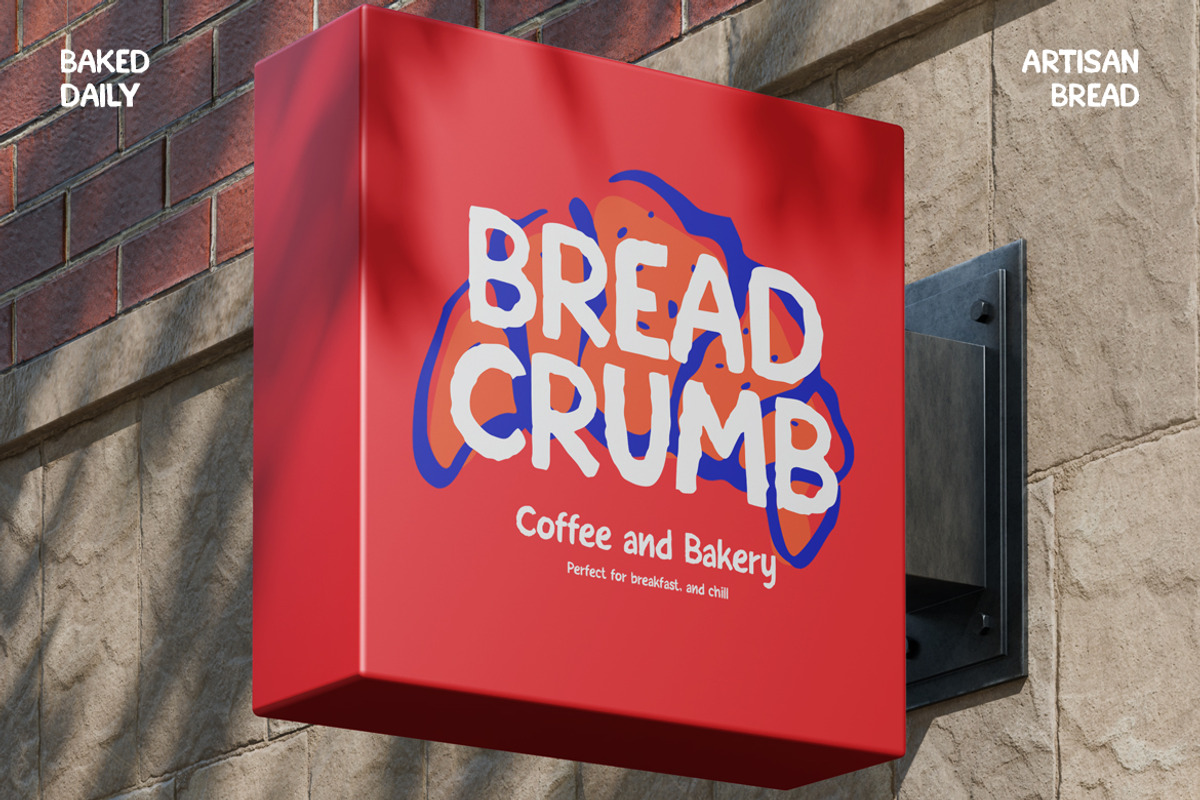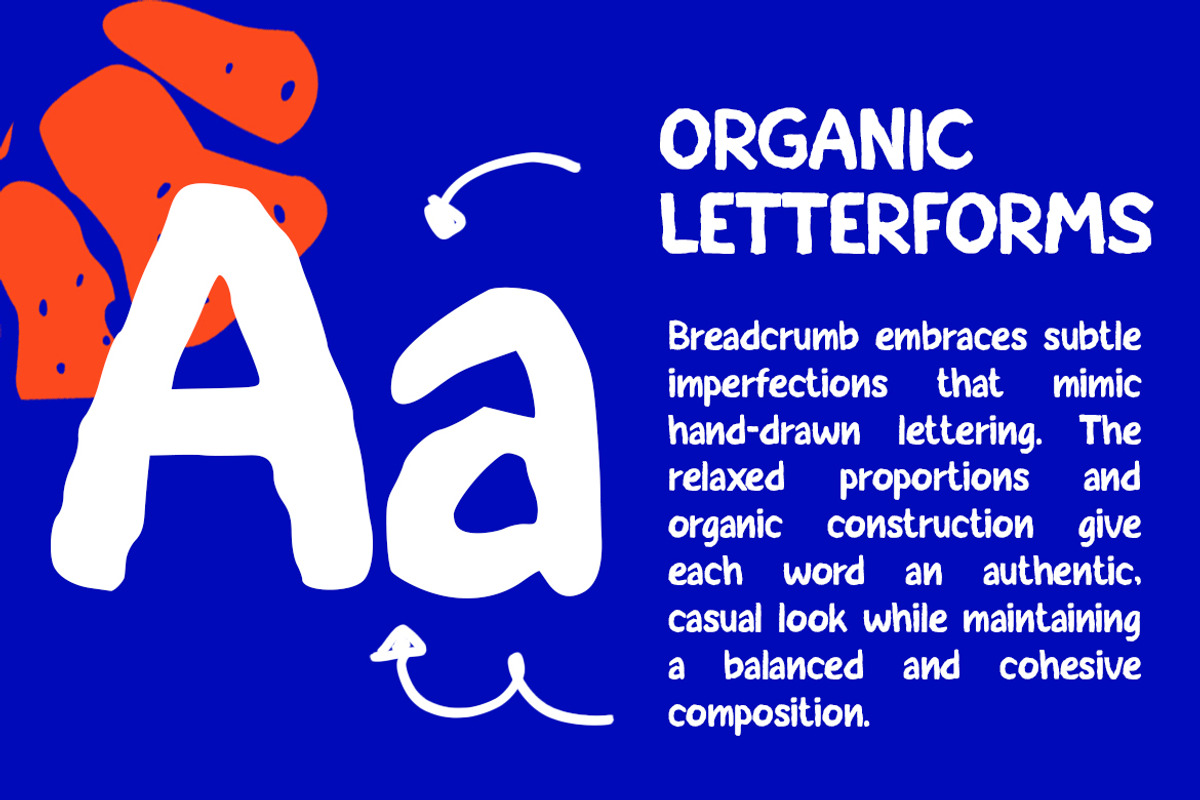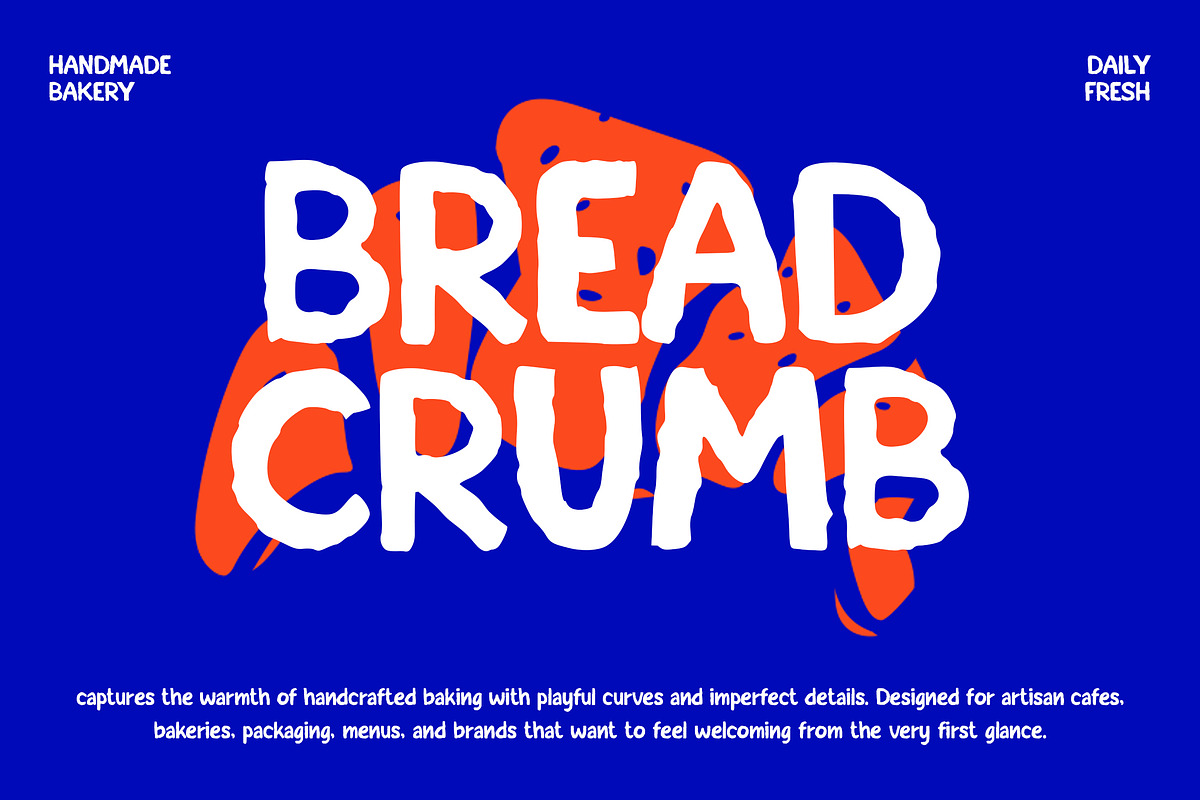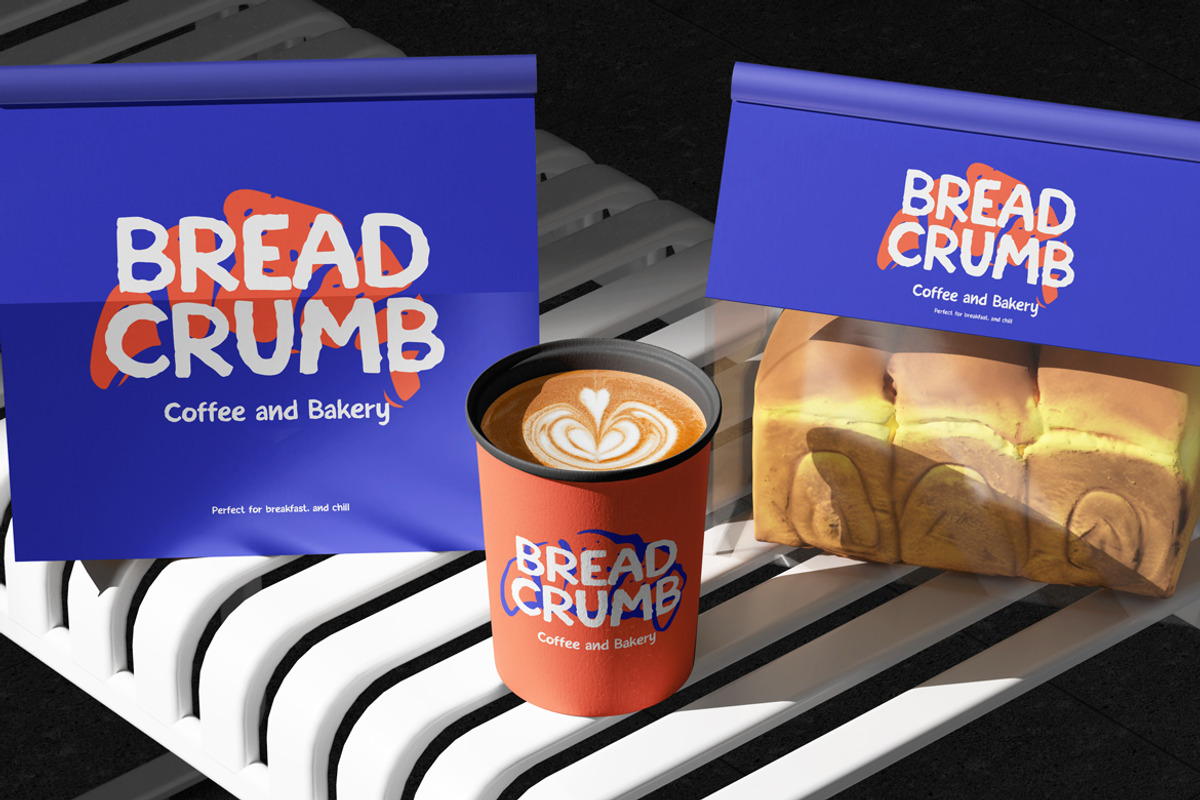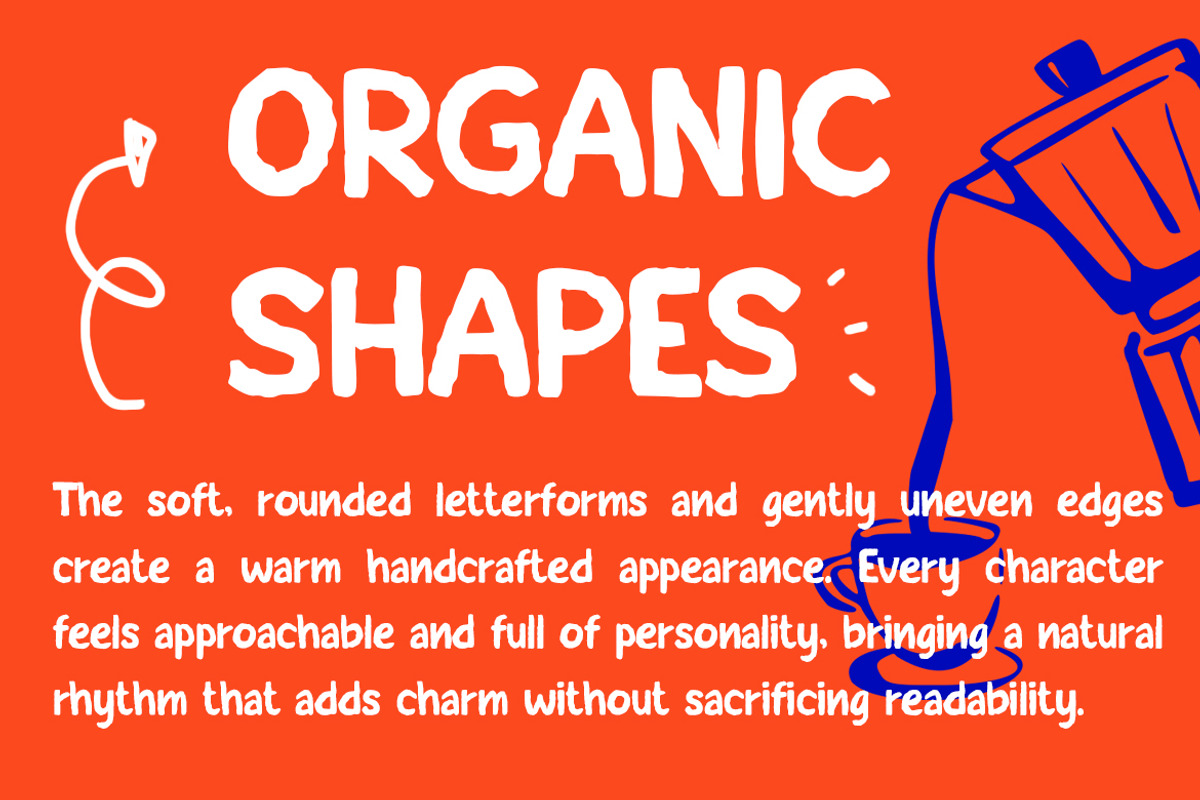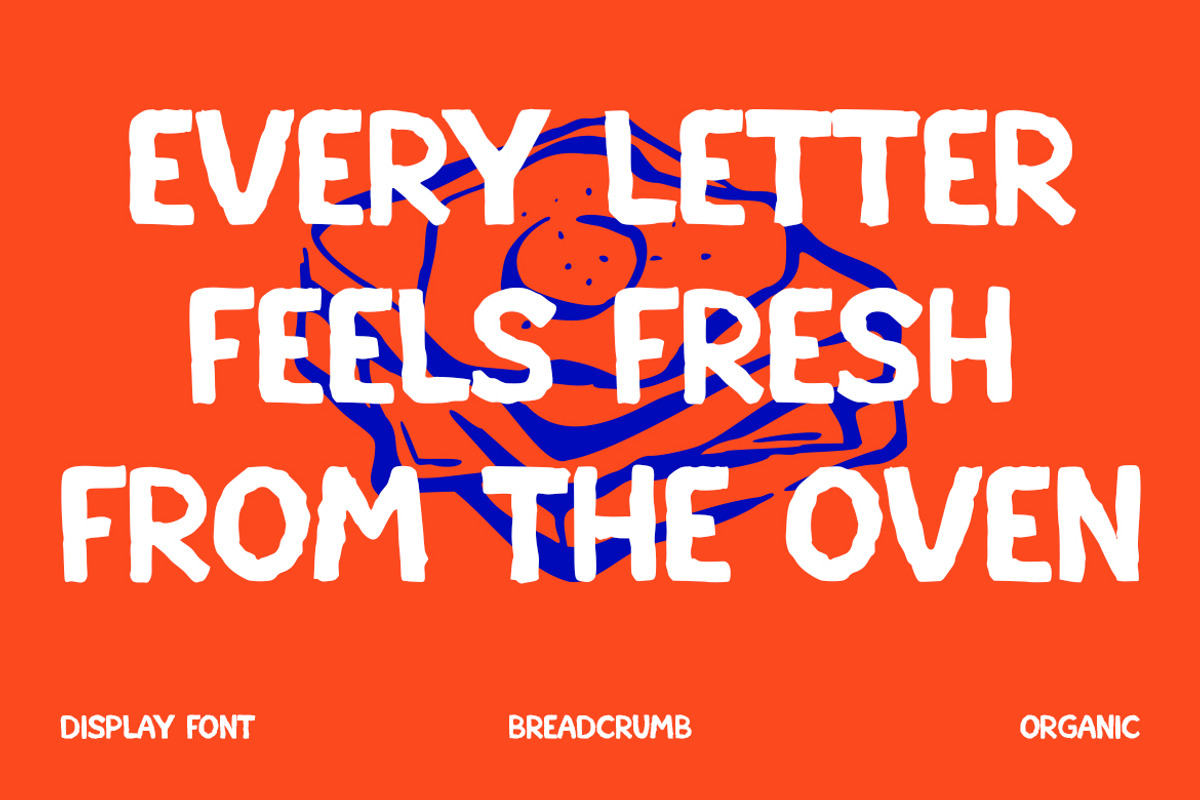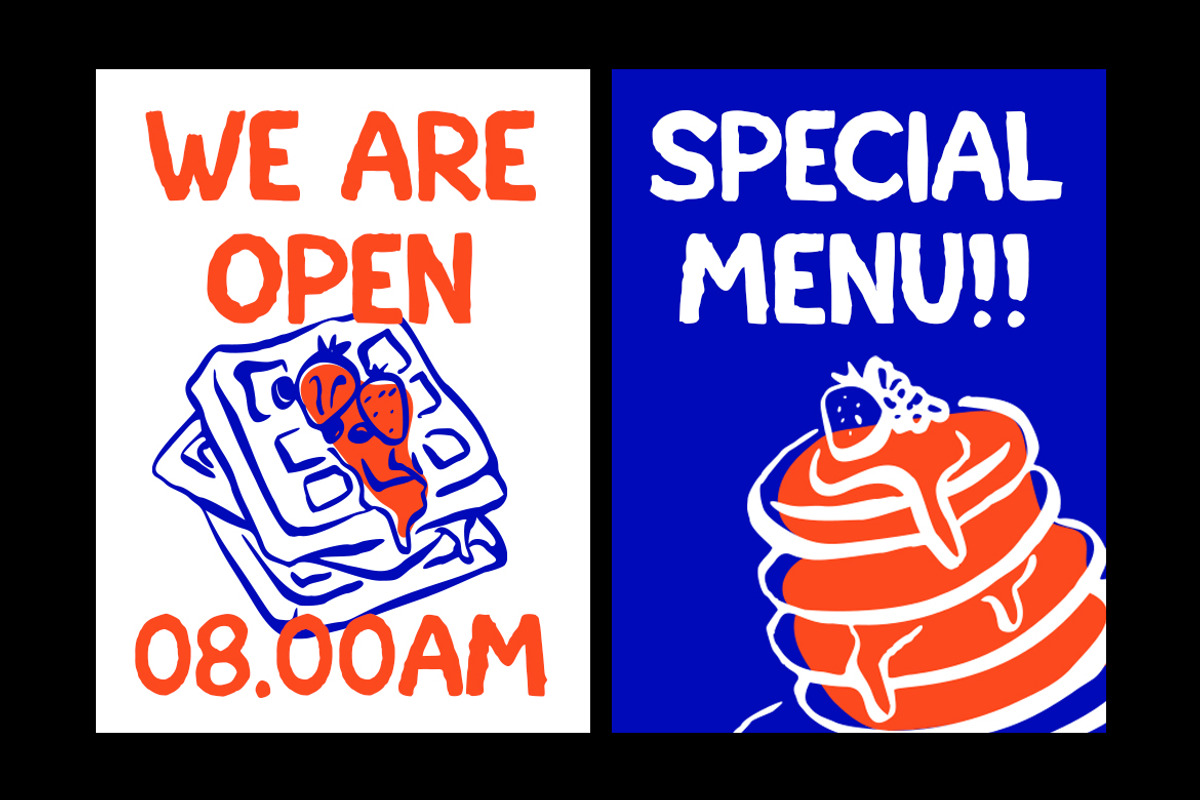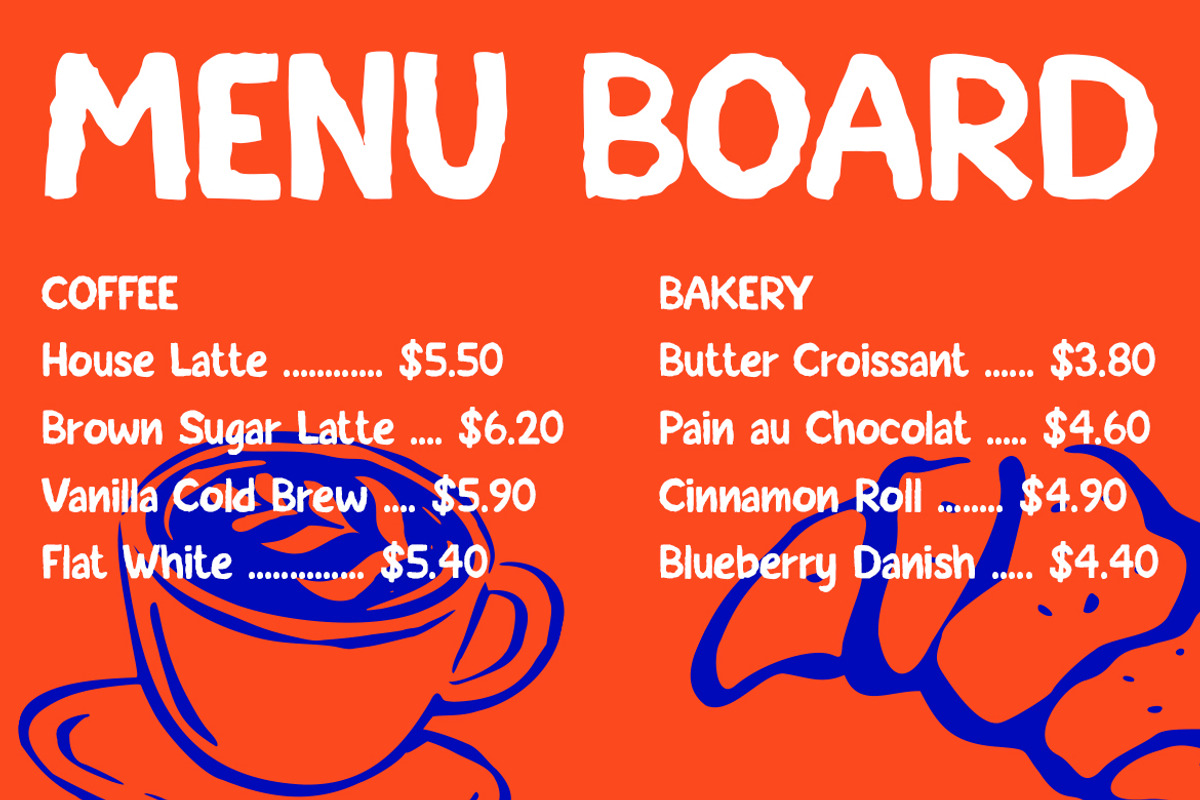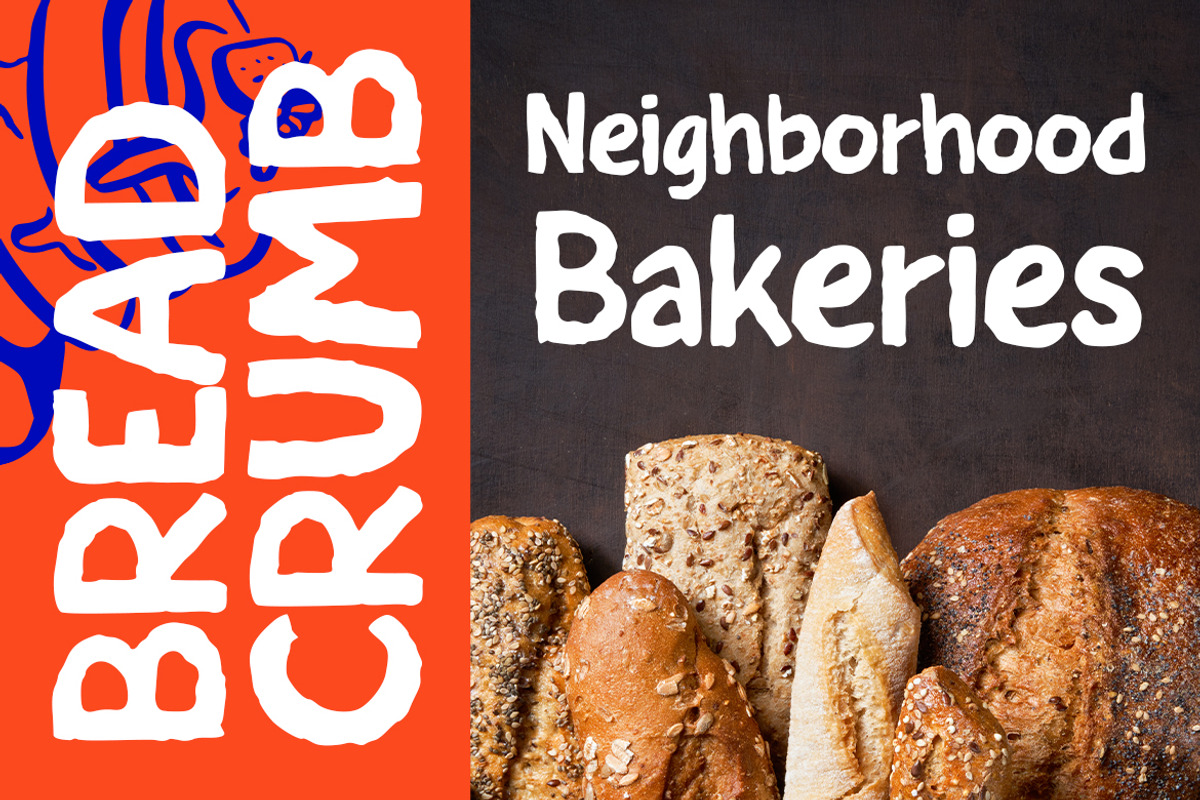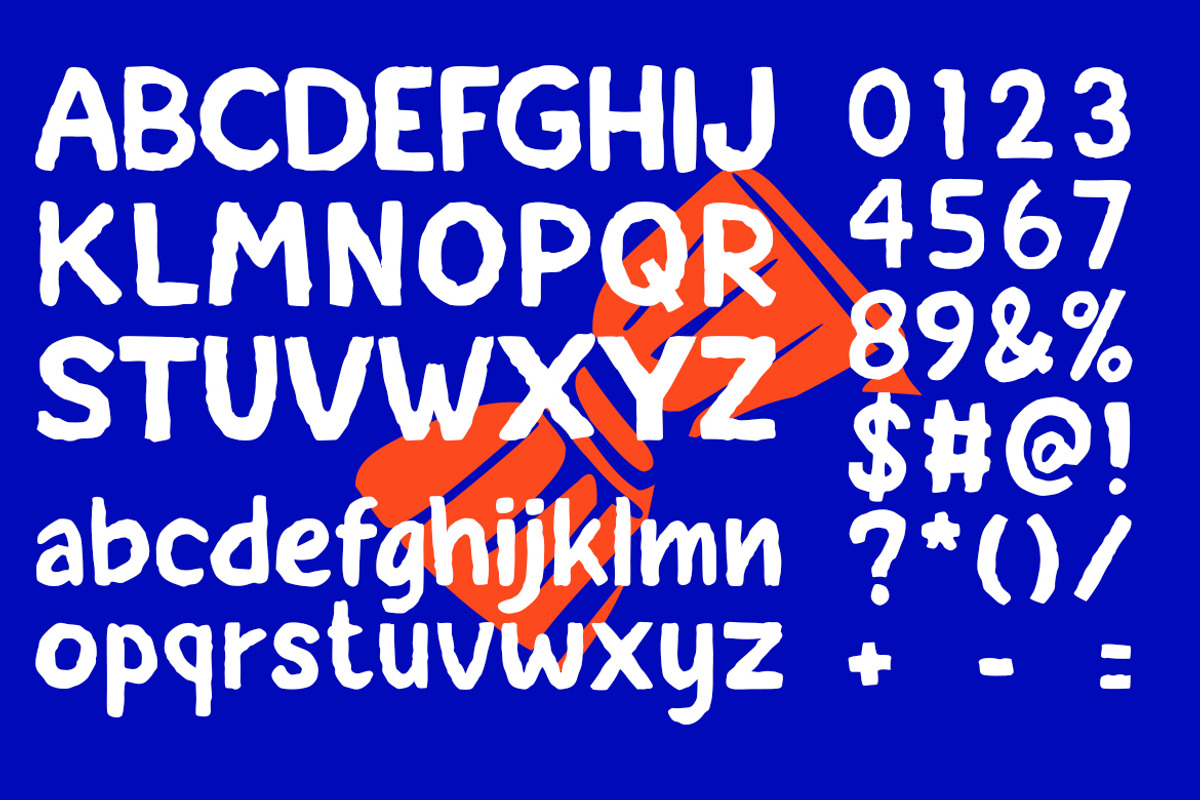
Breadcrumb
Breadcrumb – Fresh, Organic Letterforms for Fun Branding & Happy Designs
Kids Font Breadcrumb brings a cheerful handmade personality with soft, rounded letterforms. Its gently uneven edges create a warm and organic appearance that instantly feels friendly. Inspired by freshly baked bread, this playful display font delivers a welcoming style while remaining bold and easy to read. Moreover, every character is designed with a natural rhythm that makes headlines feel lively and expressive. As a result, your designs become more memorable without losing clarity. Whether you are creating packaging, branding, posters, or social media graphics, Breadcrumb adds playful energy and handcrafted charm. In addition, its organic shapes work beautifully in both digital and printed projects. This balance of personality and readability makes it a dependable choice for creative work of every size.